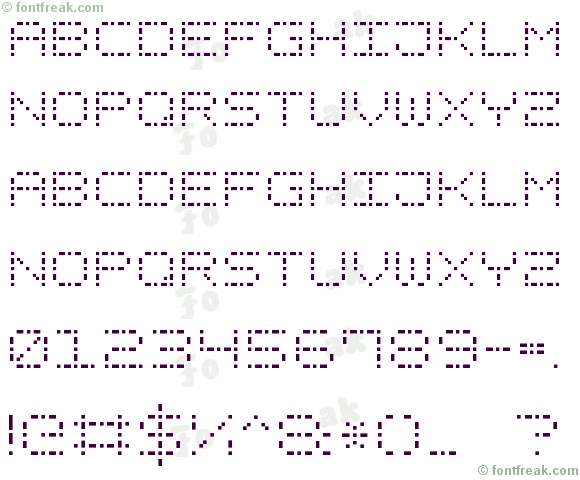
Dash Dot Square-7
About Dash Dot Square-7
Dash Dot Square-7 by Style-7 is a unique display font that embodies a modern and geometric aesthetic. This font stands out with its distinct combination of dash and dot elements, creating a playful yet structured appearance. The stroke weight is consistent throughout, offering a clean and cohesive look, while the spacing between characters is well-balanced, ensuring legibility across various sizes. The font's design features a minimalistic approach with its square elements, making it suitable for a variety of creative applications.
Ideal for use in graphic design projects, Dash Dot Square-7 is particularly effective for eye-catching headlines and titles. It works wonderfully for promotional materials, such as event posters or flyers, where a bold and memorable statement is needed. Additionally, the font can enhance the visual appeal of digital content, making it a great choice for website headers or social media graphics. Small business owners can utilize this font for branding purposes, creating a distinctive logo or signage that captures attention. Content creators will also find it useful for infographics and presentations, where clarity and style are paramount.